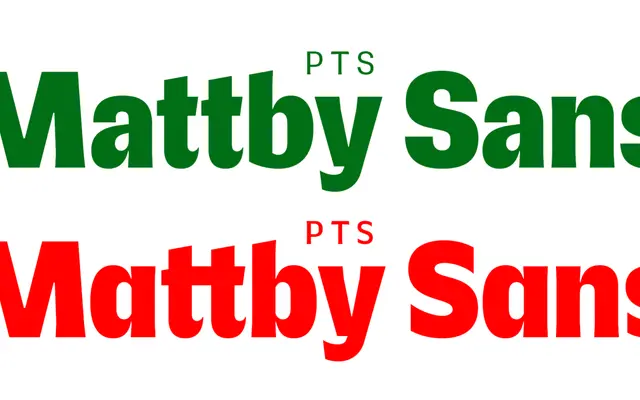
PTS Mattby Sans
Paavola Type · 2022
A geometric sans-serif spanning eight weights with broad Latin language support, developed from the earlier Mattby Display family.
Derived from Mattby Display, which launched in 2022 as a two-cut family, PTS Mattby Sans extends the concept into a full eight-weight range from ExtraLight to Black. The family covers over 200 Latin-based languages and includes a thoughtful set of OpenType features: two stylistic sets offering single-storey a and g variants and an alternate S, extensive discretionary ligatures, glyph substitutions for arrows and symbols, and titling forms. The overall character is clean and unadorned, suited to branding, editorial and UI contexts where a neutral geometric voice is needed.
The foundry describes clean geometry as a defining characteristic, and the letterforms include optional single-storey a and g, typical of geometric sans-serif traditions.